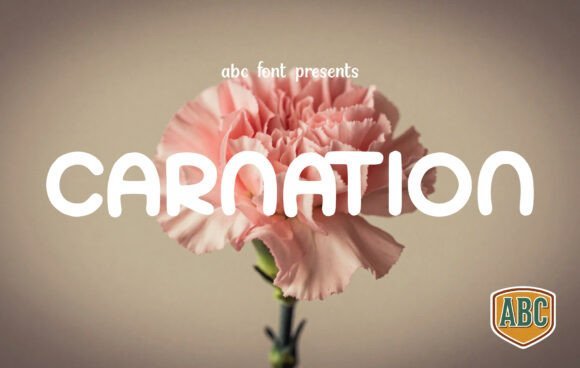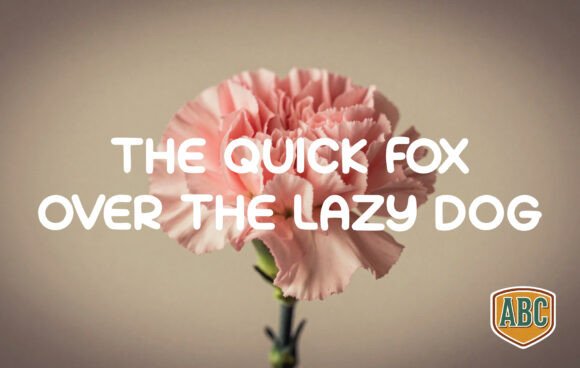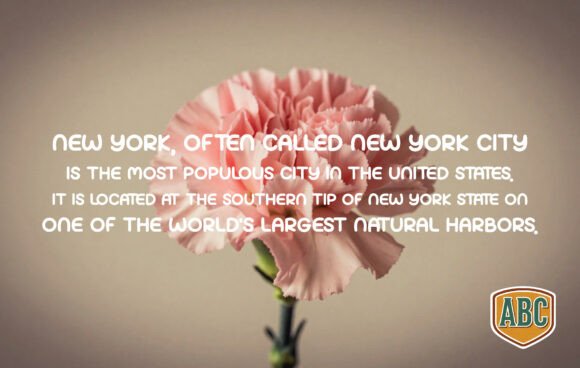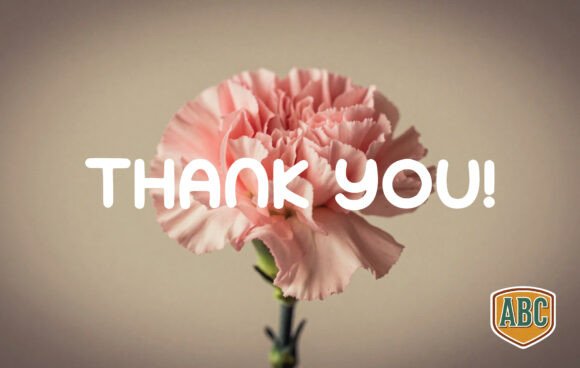
The Perfect Touch: Unveiling the Carnation Font
Have you ever been stuck on a design project, searching for that elusive spark to bring your vision to life? For many creatives, this moment is all too familiar. But what if I told you that the secret to elevating your designs lies in a single, elegant font?
Enter the Carnation Font, a timeless and charming sans serif font designed to capture attention and leave a lasting impression. With its unique and beautiful touch, this font is the perfect choice for creating eye-catching logos, branding, and quotes that will make your designs truly shine.
For designers, the Carnation Font is a valuable asset, offering a versatile and sophisticated solution for a wide range of projects, from wedding stationery to product packaging and social media designs. Whether you’re a seasoned pro or just starting out, this font is sure to become a trusted companion in your creative journey.
Carnation Font Key Features
- Font Family: Carnation Font is a sans-serif typeface designed for readability and versatility.
- Unique Characteristics: Carnation Font features a clean and modern design, with subtle rounded edges and a neutral color palette, making it suitable for a wide range of applications, including digital and print media.
Carnation Font Review
I recently had the chance to work with the Carnation font, and here’s my honest review:
- ✨ Beautiful, elegant aesthetic: The Carnation font is perfect for projects that need a touch of sophistication and refinement.
- ✨ Excellent legibility: The font is well-designed for both body text and headings, making it easy to read even at smaller font sizes.
- ✨ Wide language support: Carnation font supports a wide range of languages, including Latin, Cyrillic, and Greek alphabets.
- ⚠️ Limited font weights: The font family only includes a few weights, which may limit its versatility in certain design scenarios.
- ⚠️ Not ideal for bold or dramatic text: While the font is elegant, it’s not well-suited for projects that require bold or dramatic typography.
Overall, I’m impressed with the Carnation font’s elegant aesthetic and excellent legibility. While it has some limitations, it’s a great choice for projects that need a touch of sophistication and refinement. However, it may not be the best fit for projects that require bold or dramatic typography.
Tips: Use the Carnation Font for elegant and sophisticated designs. Pair it with pastel colors and floral elements for a whimsical look.
Tips: Use the Carnation Font for high-end designs and creative projects. Experiment with layer blending modes and effects to add depth and interest.
Tips: Use the Carnation Font for professional presentations and documents. Pair it with clean and minimal designs for a polished look.
The Carnation Font is ideal for:
Baby shower invitations and decorations
Floral-themed designs and illustrations
High-end branding and marketing materials
Alternatives to Carnation Font
Great Vibes is a beautiful, elegant script font perfect for creating a sense of luxury and sophistication. It’s ideal for use in high-end branding, invitations, and wedding stationery. Great Vibes has a more refined and delicate feel compared to Carnation Font, which makes it suitable for projects that require a touch of class.
Alex Brush is a handwritten font with a unique, artistic feel. It’s perfect for use in creative projects that require a personal touch, such as book covers, posters, and editorial designs. Compared to Carnation Font, Alex Brush has a more rugged and expressive feel, making it suitable for projects that require a sense of authenticity.
Q: What is the recommended font size and line height for Carnation Font?
For optimal readability, we recommend using a font size between 12 and 24 points, depending on the application and intended audience. A line height of 1.2 to 1.5 times the font size is also suggested to ensure comfortable reading and a visually appealing layout.